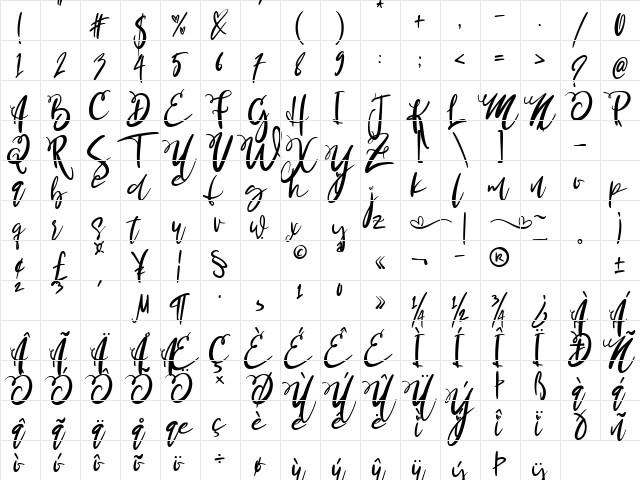
Sister & Brother Regular
Design Context for Sister & Brother Typeface
Sister & Brother is a composed and adaptable typeface that performs quietly and consistently across a wide range of design contexts.